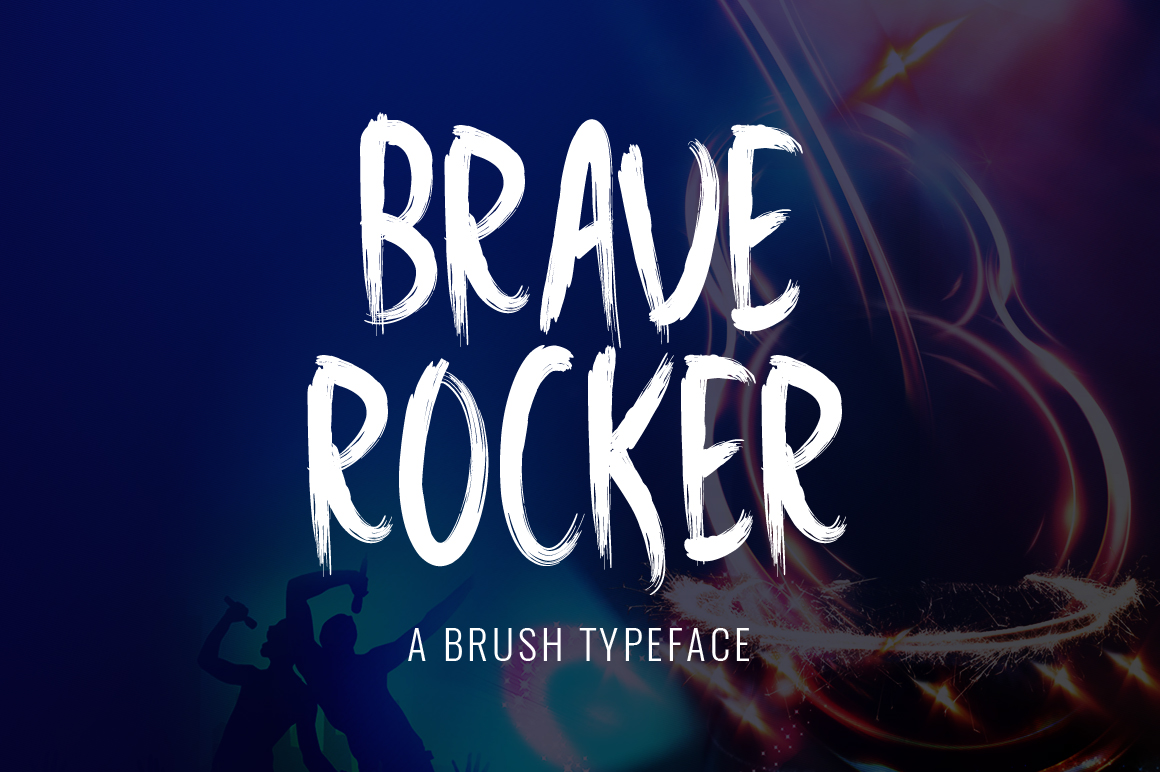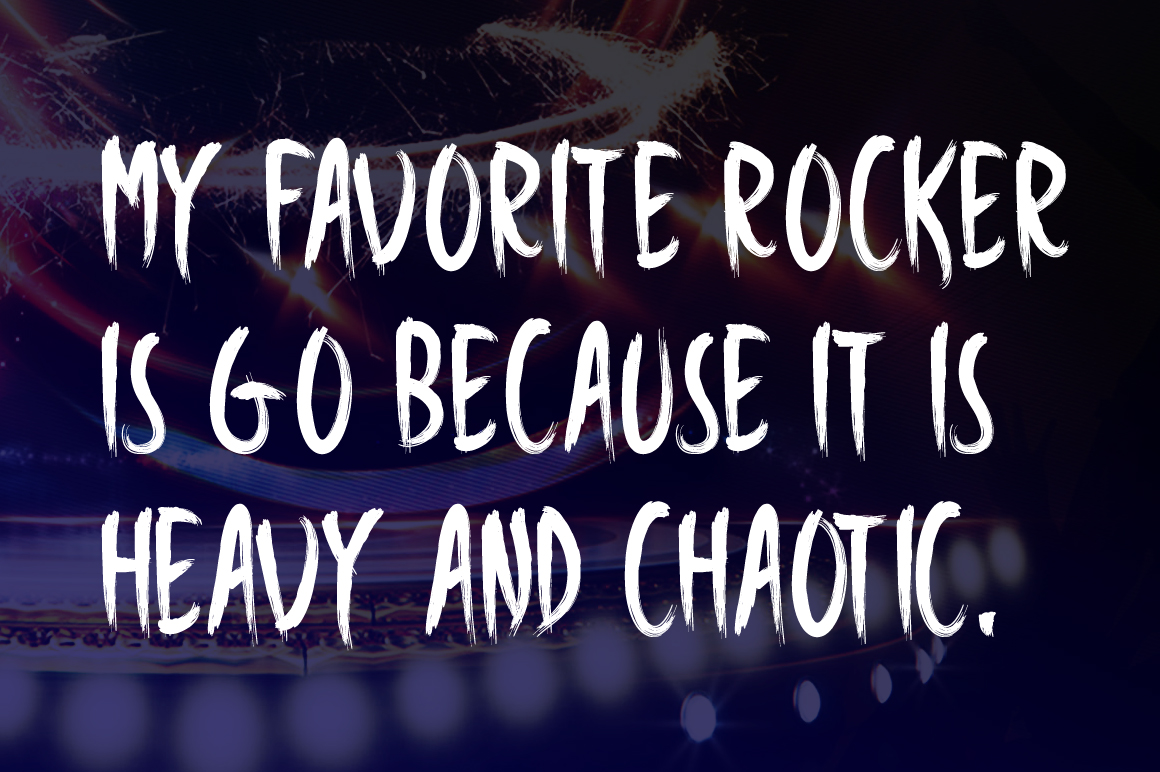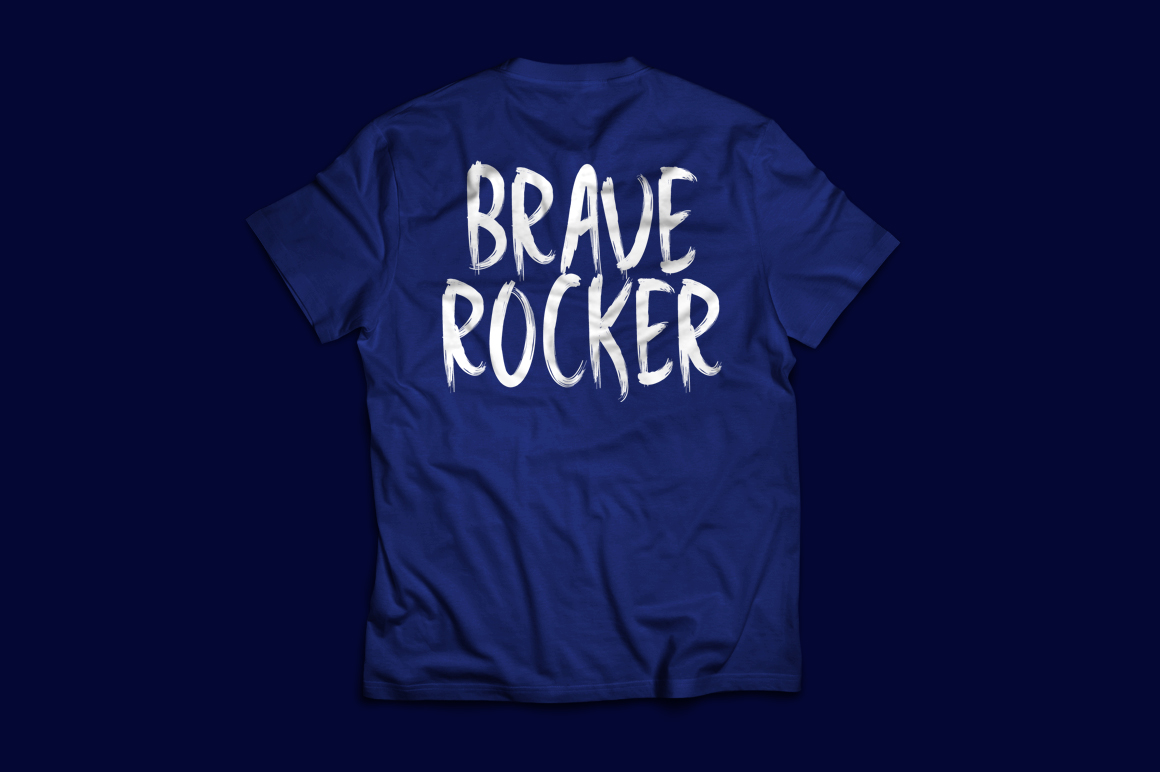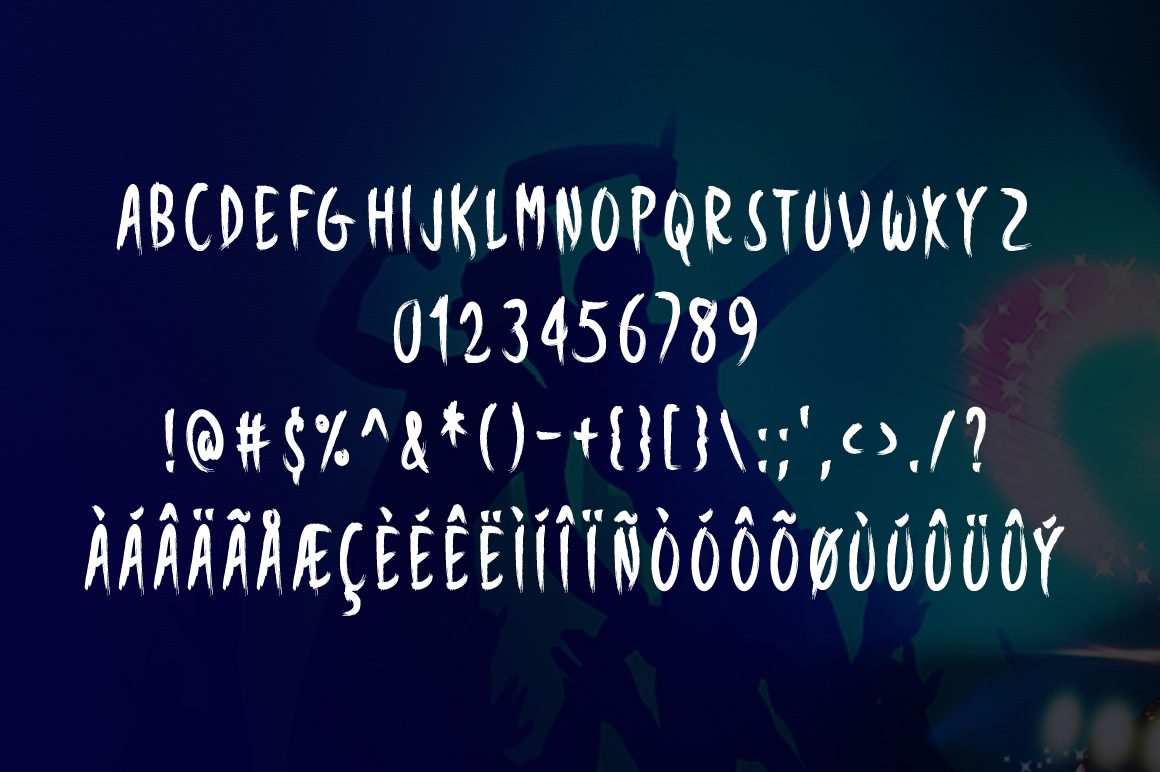
HomeScript FontsBrave Rocker Font Script Fonts Brave Rocker Font FacebookXPinterestWhatsApp Brave Rocker Font Poster 2 Brave Rocker Font Poster 3 Brave Rocker Font Poster 4 About Brave Rocker Font Brave Rocker is a fun rough brush. DOWNLOAD ON CREATIVE FABRICAThis font is sold and delivered by Creative Fabrica. Font Canyon may earn a commission if you buy through this link. People also explored Gilliana Diary Font Nilakandi Font Anduaga Groovy Font Moms Love Font Homework Font Jhonyblen Font Beauty Flower Font Head Capital 272 0 TagsBrave Rocker Font Previous articleRotterdam Street FontNext articleSweet Wanderlust Font LEAVE A REPLY Cancel reply Comment: Please enter your comment! Name:* Please enter your name here Email:* You have entered an incorrect email address! Please enter your email address here Website: Save my name, email, and website in this browser for the next time I comment. Personal Use Free Moon Light Personal Use Free Read more about this font Love Story Personal Use Free Read more about this font Rionaldo Angelo Personal Use Free Read more about this font Vivacious Personal Use Free Read more about this font BLOG Transform Your Website: Elevate Your Typography with 7 Best Web Font Generators Are you ready to transform your website's typography from ordinary to extraordinary? Great! Today, we're diving into the world of web font generators, which... Free Fonts Risk: Why Free Fonts Can Be Dangerous for Designers Top 10 Handwritten Fonts That Elevate Your Designs 5 Fonts That Will Dominate Design Trends in 2026